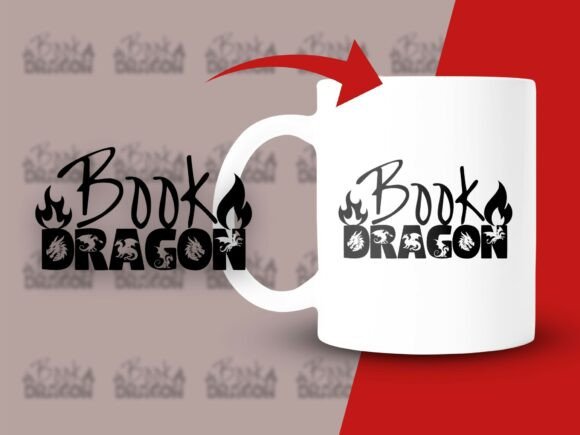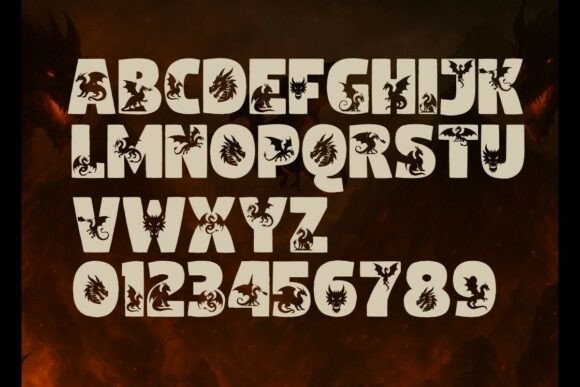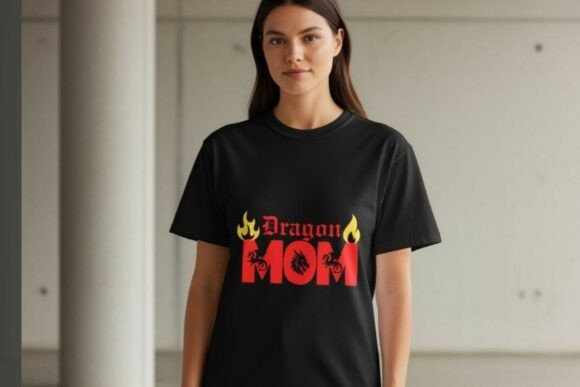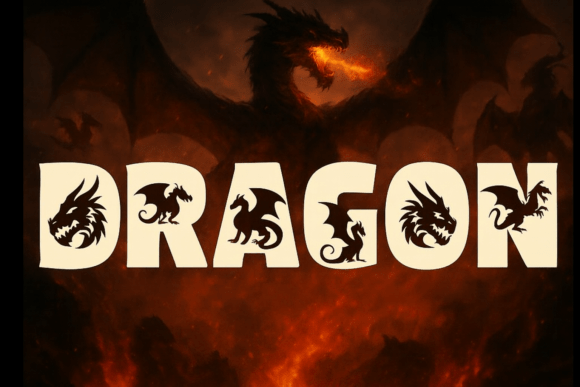
Unleash the Power of Fantasy with Dragon Font
Have you ever been in the middle of a design project, pouring your heart and soul into it, only to get stuck on one thing: the font? I certainly have. It was during a particularly challenging project, where I needed a font that could capture the essence of medieval fantasy, that I stumbled upon Dragon Font. This bold and mystical typeface has been a game-changer for me, and I’m excited to share its magic with you. ✨
A Personal Design Moment: Finding the Perfect Font
I was working on a branding project for a fantasy-themed game, and I needed a font that could convey strength, courage, and a hint of magic. I scoured the internet, tried out countless fonts, but none seemed to fit the bill. That was until I discovered Dragon Font. Its unique blend of boldness and elegance immediately caught my attention, and I knew I had found the perfect fit. ✅
An Honest Review of Dragon Font
So, what makes Dragon Font so special? Here are a few things I love about it:
- ✨ Unique and eye-catching design: Dragon Font stands out from the crowd with its bold and mystical design, perfect for fantasy-themed projects.
- ✅ Highly versatile: Whether you’re working on a game, a book cover, or a logo, Dragon Font adapts seamlessly to different contexts.
- ⚡️ Excellent for titles and headings: The font’s boldness makes it perfect for grabbing attention and adding emphasis to your text.
Of course, no font is perfect, and Dragon Font has a few quirks:
- 🤔 Limited use for body text: While Dragon Font is amazing for titles and headings, it may not be the best choice for longer blocks of text.
- ⚠️ Some characters may require manual kerning: As with any font, you may need to adjust the kerning of certain characters to get the perfect look.
The Backstory Behind Dragon Font
Legend has it that Dragon Font was inspired by the mythical creatures of ancient legend. Its designer, a passionate fantasy fan, wanted to create a font that could capture the essence of these powerful beings. With Dragon Font, you can bring a touch of that magic to your designs. 🔥
| Font Name | Dragon Font |
| Author | Crea8tivedezines |
| What makes Dragon Font unique? | Dragon Font’s unique blend of boldness and elegance, inspired by the strength and fire of legendary dragons. |
| Is Dragon Font suitable for body text? | While Dragon Font is amazing for titles and headings, it may not be the best choice for longer blocks of text. |